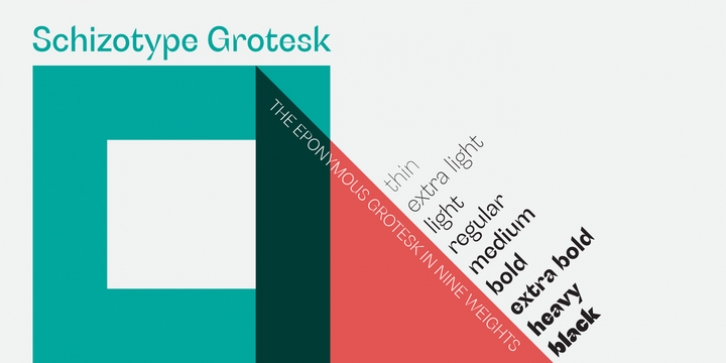
Publisher: Schizotype
A neo-grotesk with a bit more bite, this is Schizotype Grotesk. It’s not your usual grot; this is purely display typography. Notches cut deep into the letterforms and the thick/thin contrast isn't always where you might expect. It’s intended to be a challenging typeface - not beautiful or particularly ‘useful’ in any conventional sense, but it is at the very least interesting. In a world where everyone and their dog has their own grotesk offering, perhaps being interesting and that little bit different is in itself enough to give the face its utility. Besides, beauty is in the eye of the beholder. What really matters is what you think! Schizotype Grotesk isn't bogged down with a million and one OpenType features you'll never use, but it does include proportional and tabular lining figures; automatic fractions; numerators and denominators; superscript and subscript numerals; case sensitive forms; and five stylistic sets that change [a], [g], [y], [IJ], and [@] respectively.